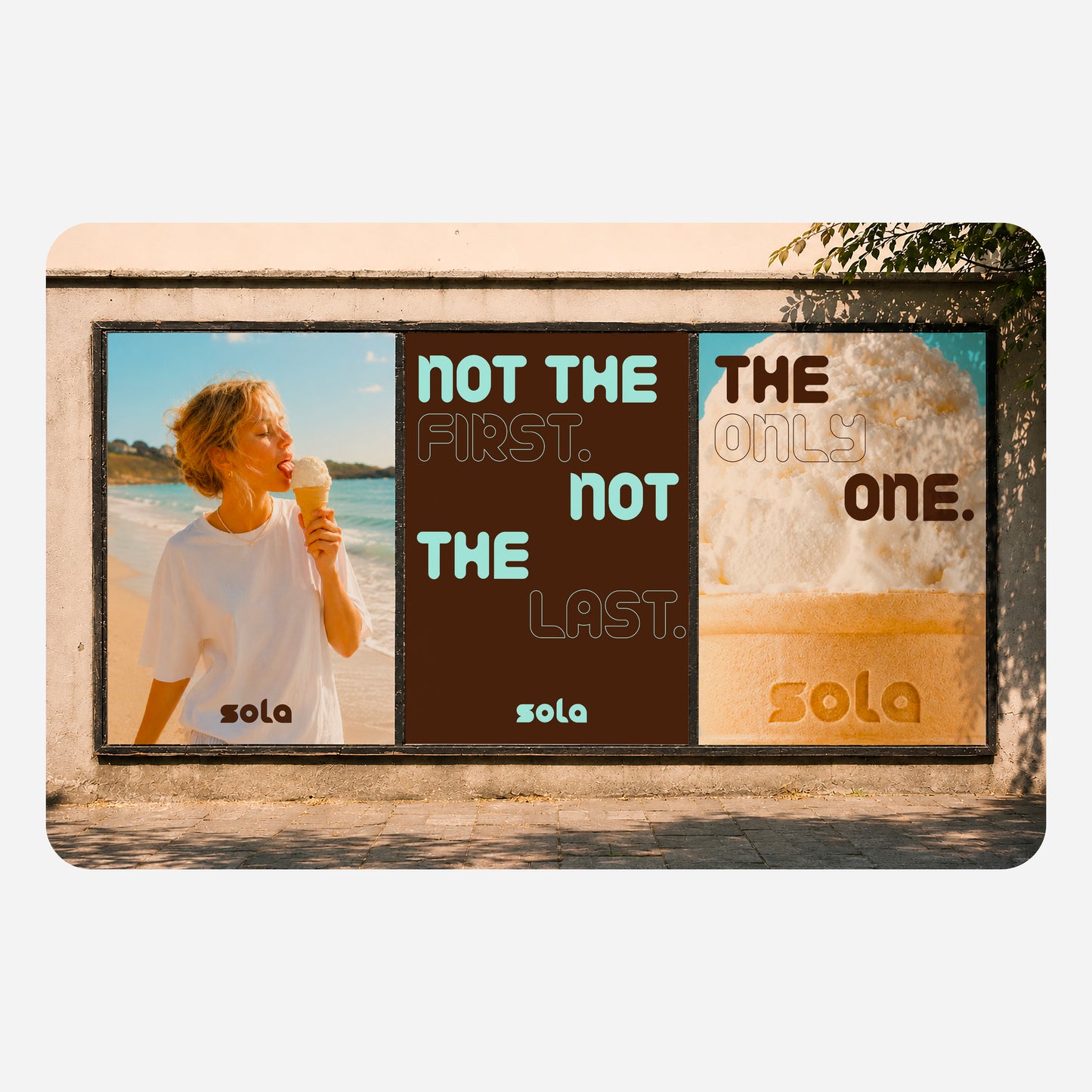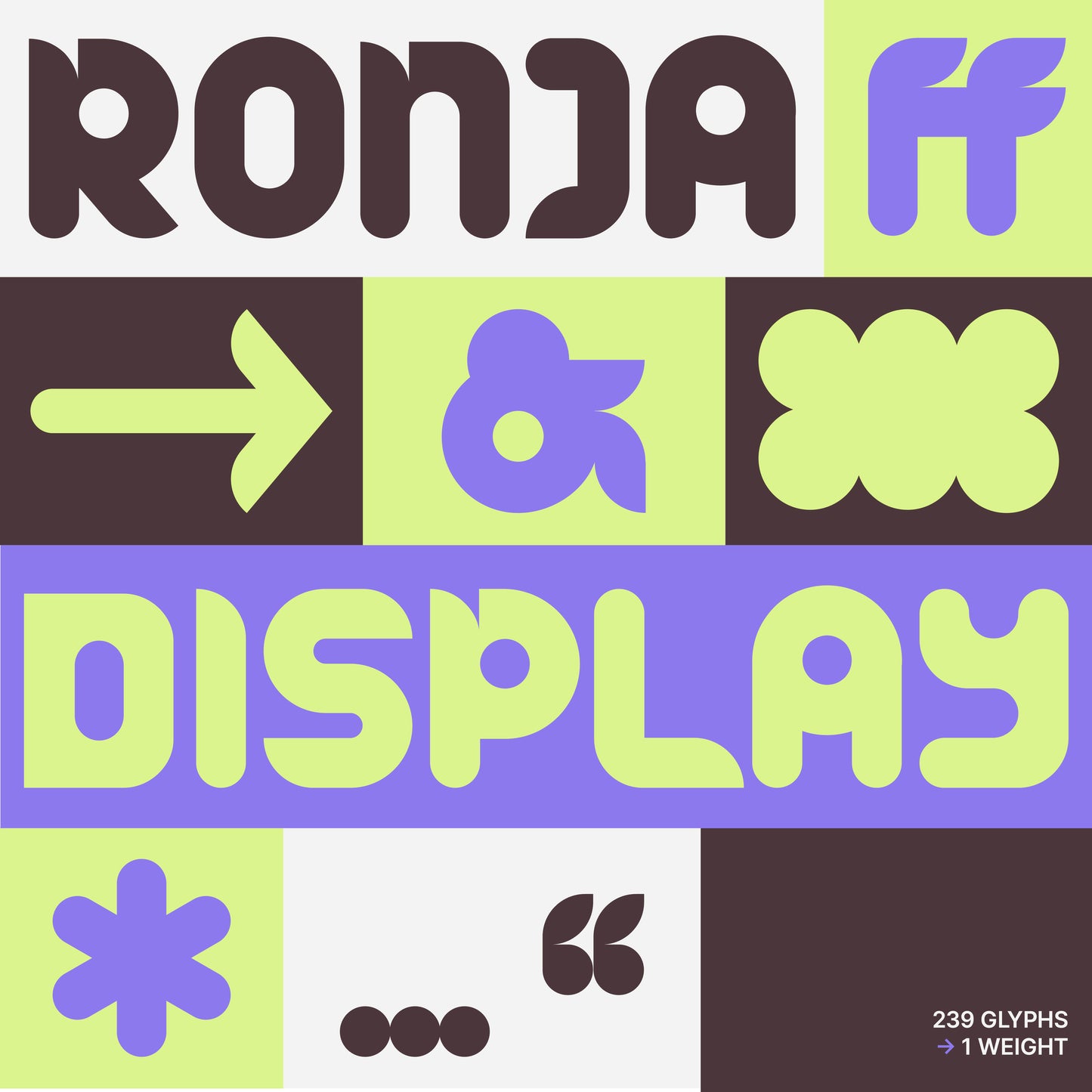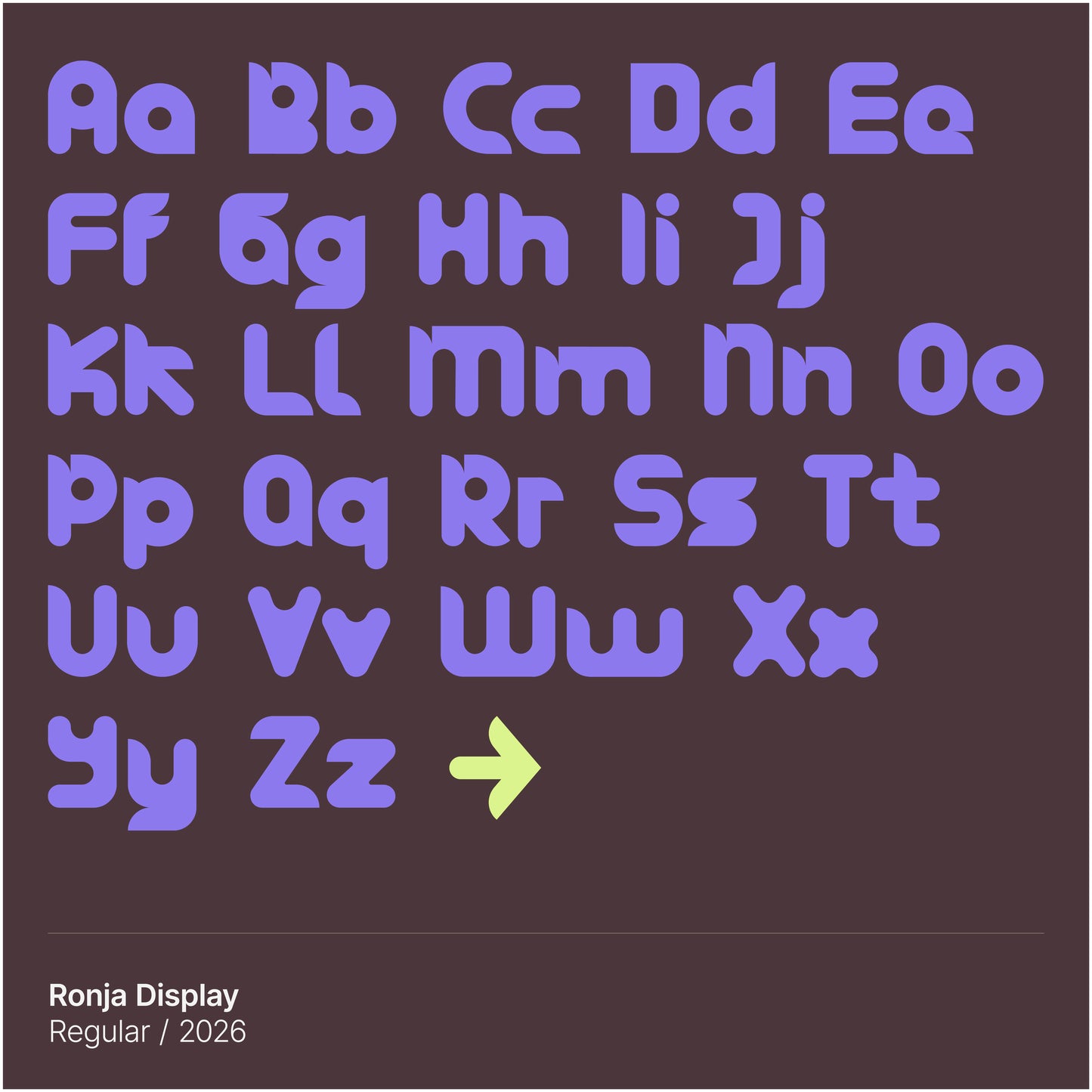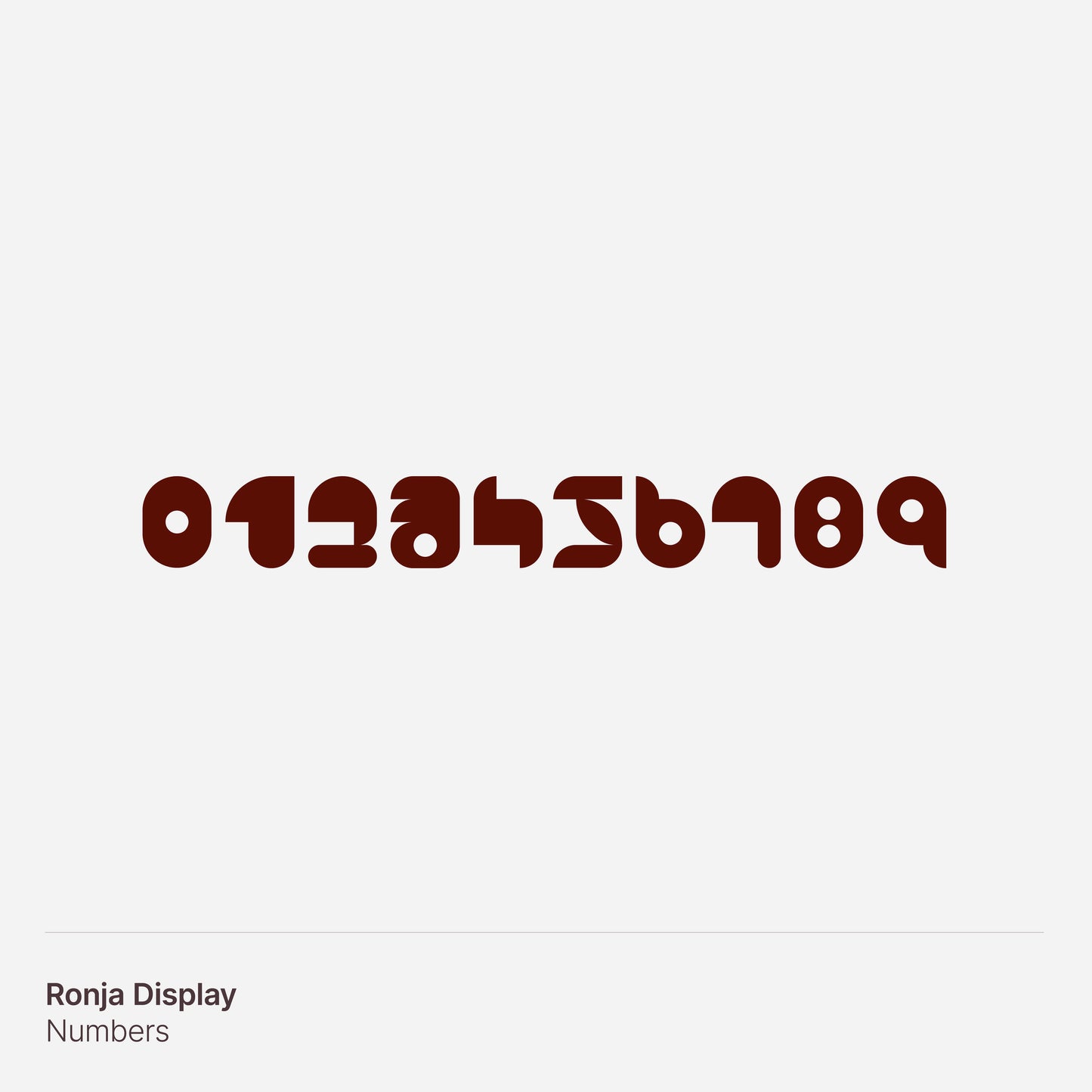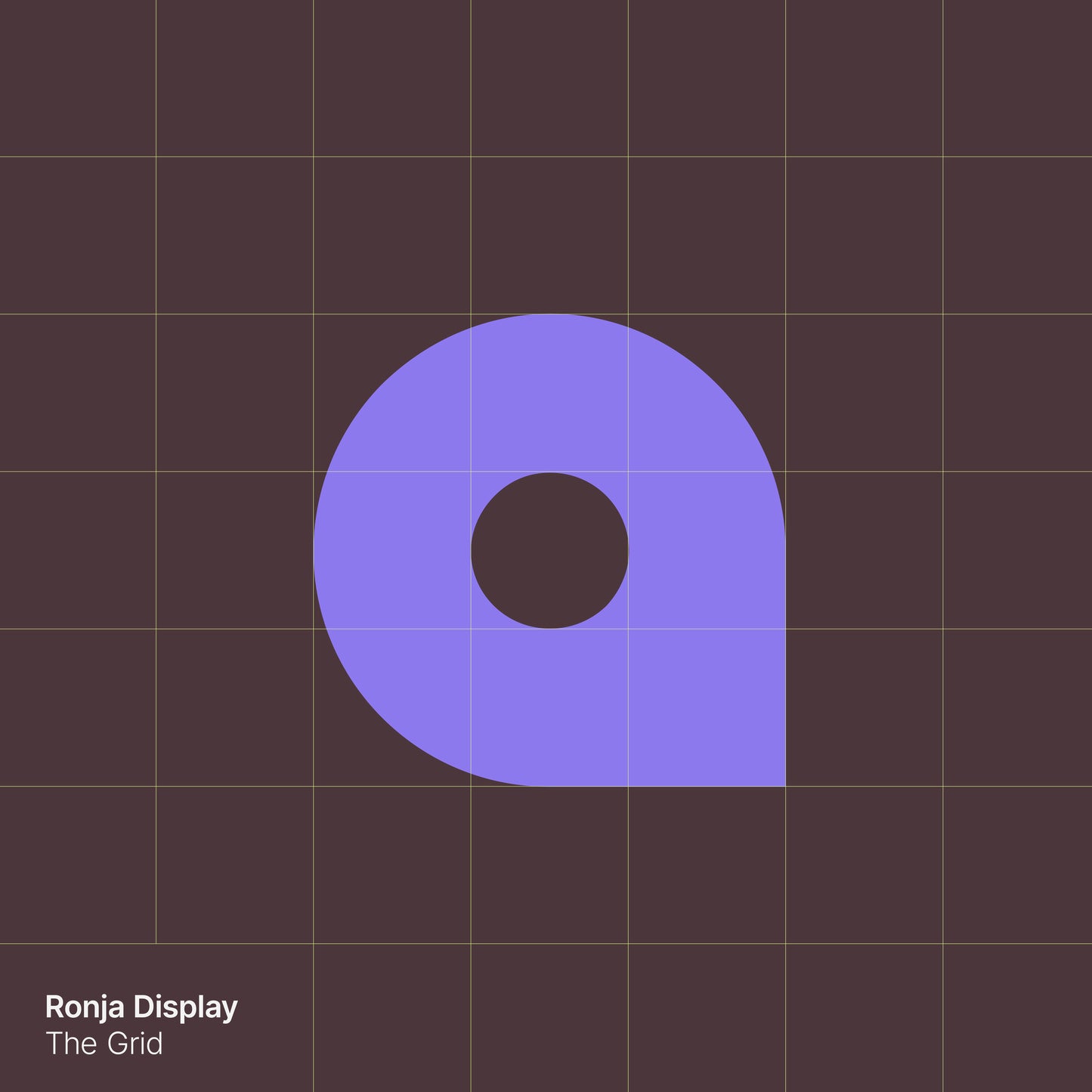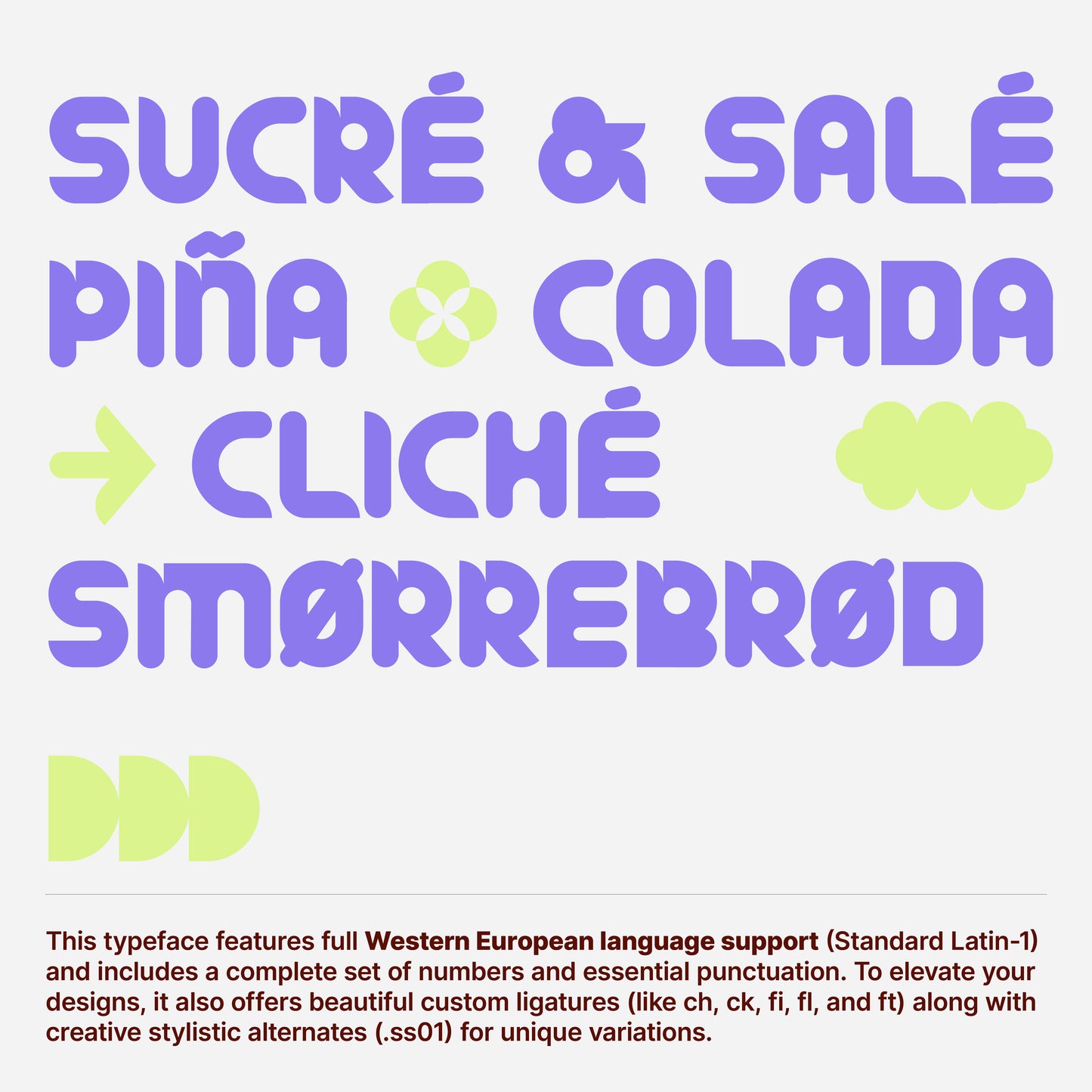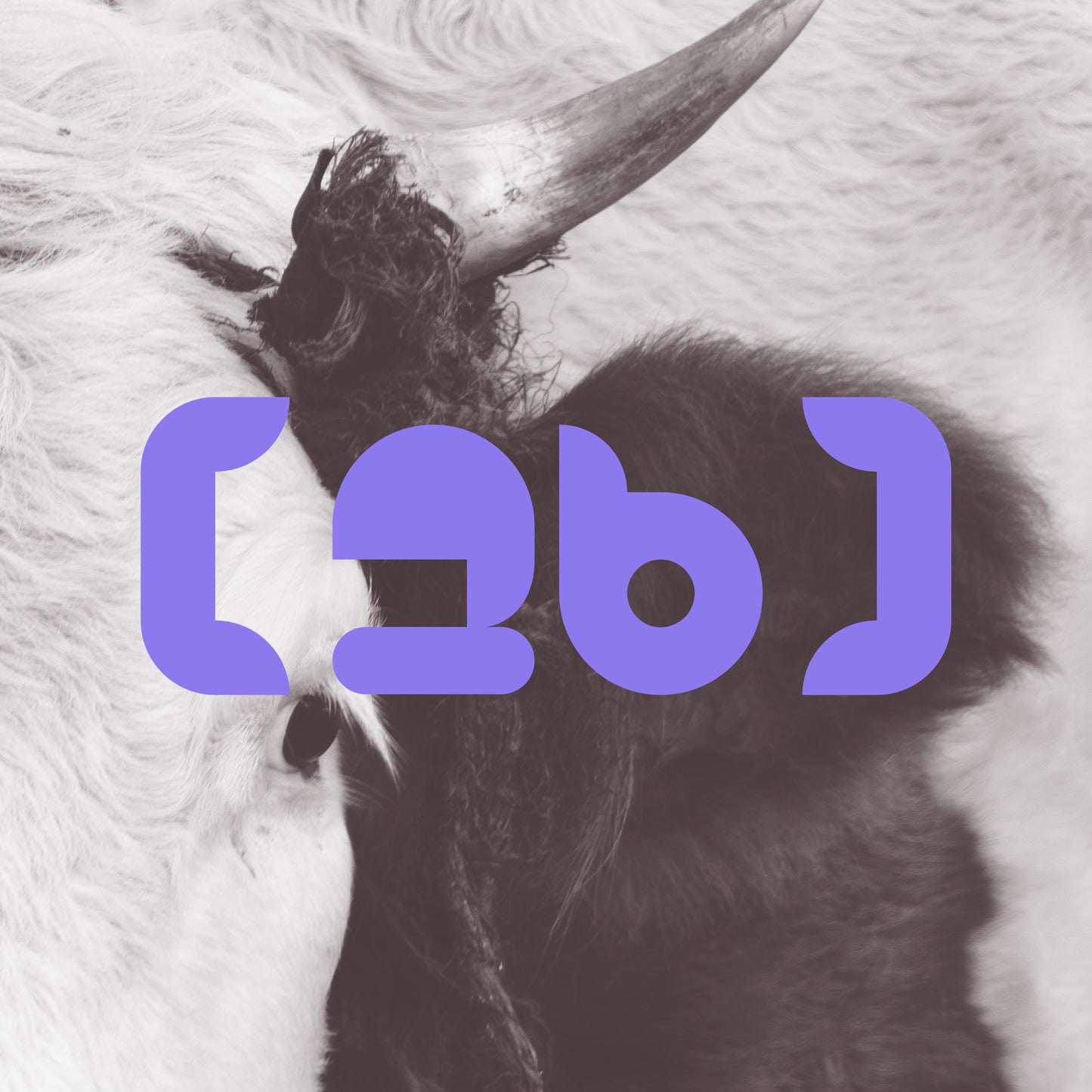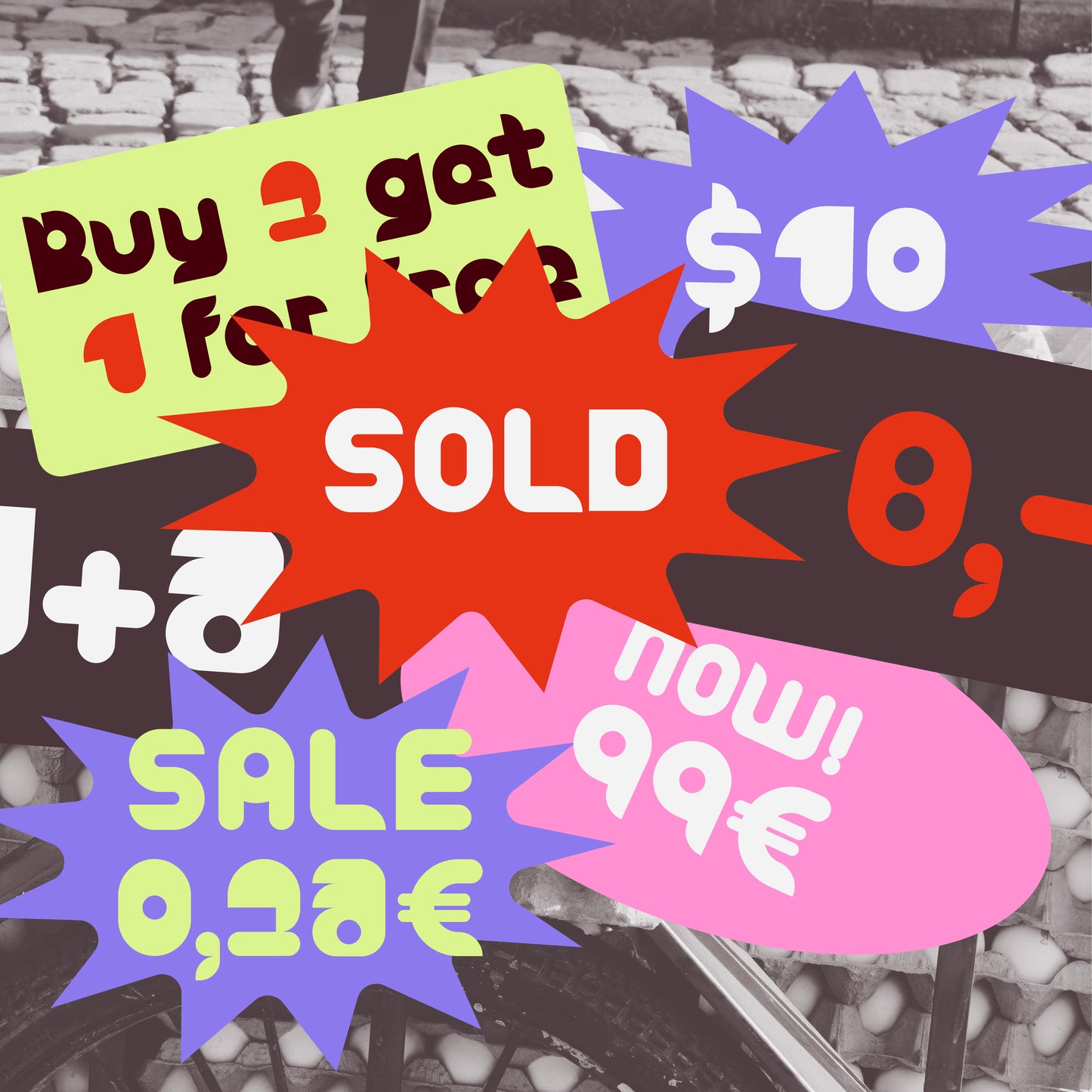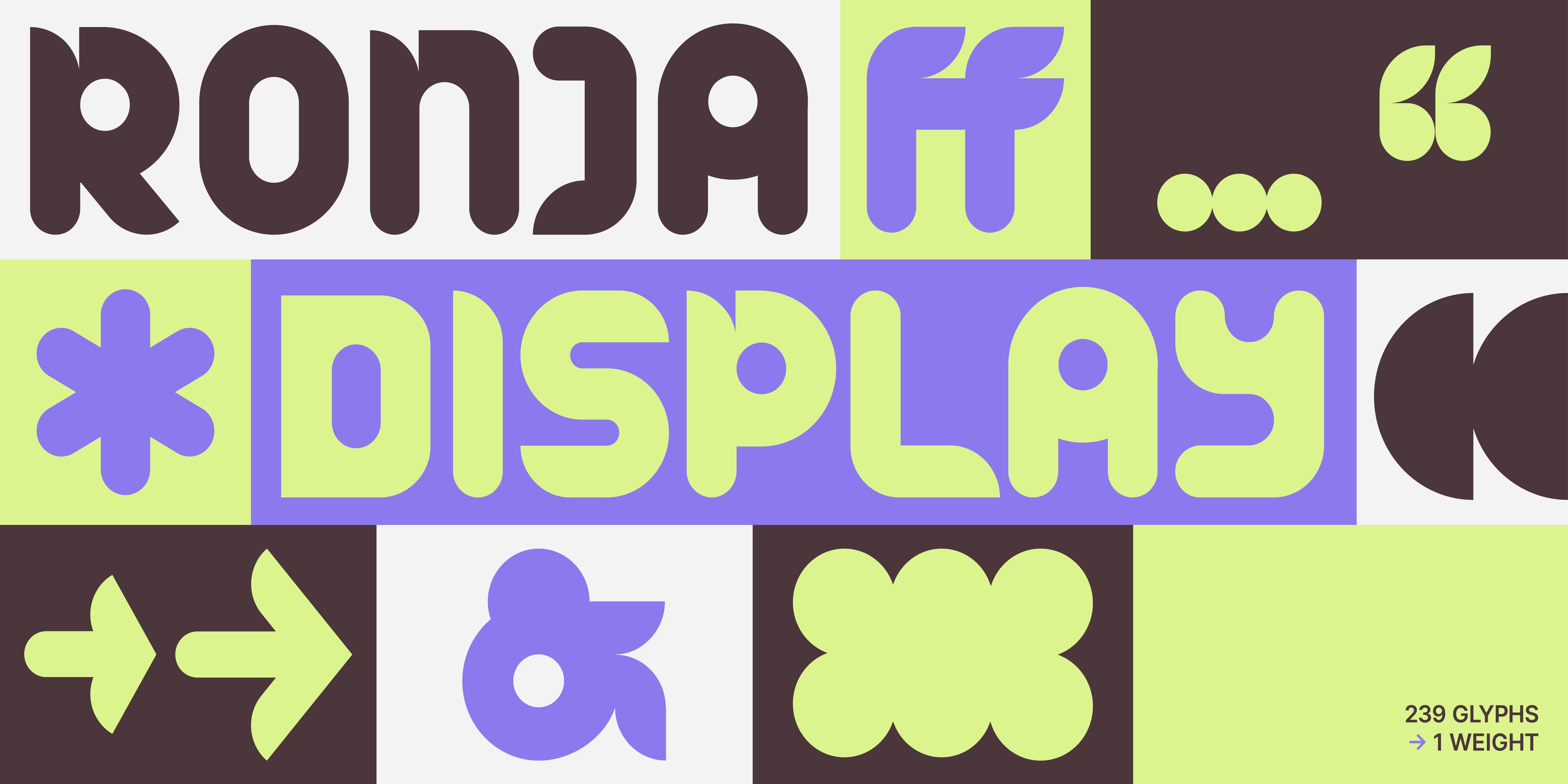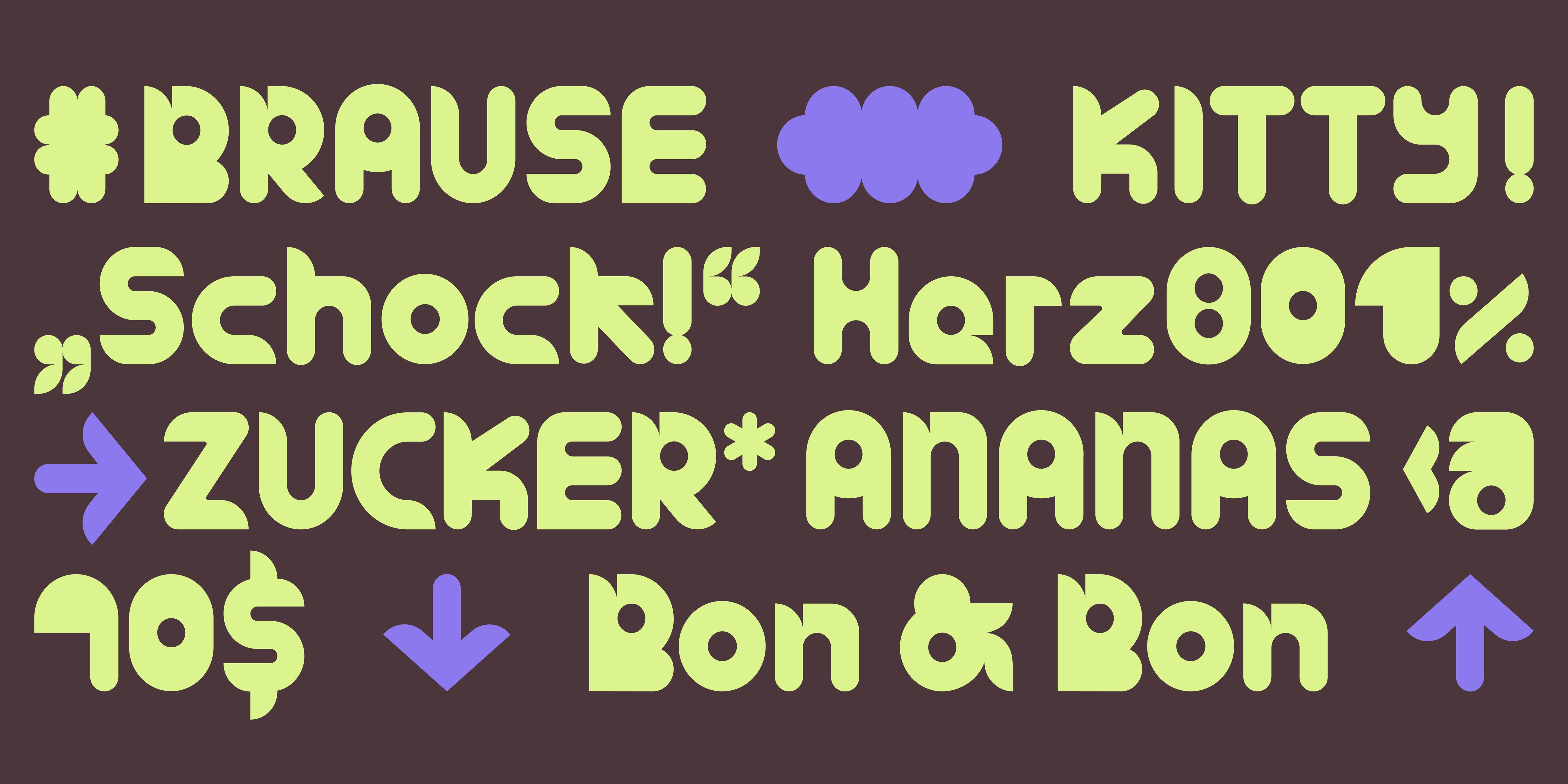
Ronja Display
Lena Seibert
Ronja Display is a vibrant, modular display typeface by Lena Seibert. Built upon a rigorous square construction grid, the font subverts expectations: through precise, selective corner rounding, rigid blocks transform into fluid glyphs. It effortlessly balances between brutalist structure and a soft, almost liquid aesthetic.
A striking interplay of sharp edges and soft forms, Ronja Display sets a bold, distinctive tone in contemporary editorial and brand design. Featuring 239 glyphs, comprehesive Western European language support(Standard Latin-1), bespoke custom ligatures, and creative stylistic alternates (.ss01), it stands as the ultimate tool for loud packaging, and modern branding.